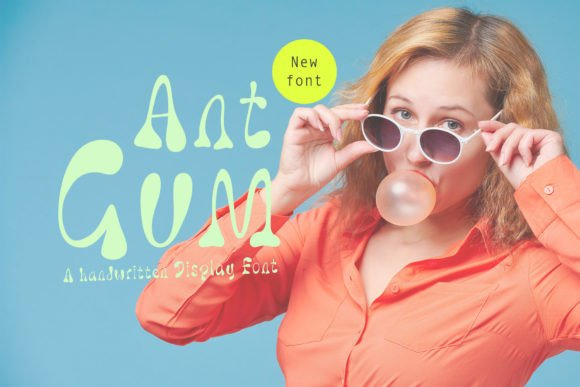
The Charm of Ant Gum Font: A Retro-Inspired Design Delight
As designers, we’ve all been there – stuck on a project, searching for the perfect font that captures the essence of our vision. I recall working on a client’s branding project, wanting to evoke a sense of nostalgia and warmth, but struggling to find a font that fit the bill. That’s when I discovered Ant Gum, a delightful font that instantly transported me to a bygone era. In this article, we’ll dive into the world of Ant Gum, exploring its unique features, and how to make the most of this beautiful font.
A Personal Design Moment: Falling in Love with Ant Gum
It was a typical Wednesday afternoon when I stumbled upon Ant Gum while browsing through a font repository. I was immediately drawn to its adorable handwriting characters and retro theme. The soft curves and sweet, charming impression it conveyed were exactly what I needed for my project. I knew right then and there that Ant Gum was going to be a game-changer.
So, what makes Ant Gum so special? Here are a few things I love about this font:
• ✨ Adorable handwriting characters that exude warmth and nostalgia
• ✅ Retro theme that adds a touch of vintage charm to any design
• 💕 Soft curves and sweet, charming impression that evoke feelings of innocence and playfulness
Of course, no font is perfect, and Ant Gum has a few quirks to be aware of:
• 🤔 Limited character set, which may require some creative workaround for certain design projects
• ⚠️ Not ideal for body text, as it’s best suited for headlines and titles
The creator of Ant Gum was inspired by the warmth and nostalgia of retro handwriting styles. They wanted to create a font that would evoke memories of the past, while still feeling modern and fresh. With Ant Gum, they aimed to bring a sense of joy and nostalgic feelings to designers and crafters alike.
Font Name Ant Gum Font
Author Tera Asset Garage
What is Ant Gum font best used for? Ant Gum is ideal for designs that require a touch of nostalgia and whimsy, such as branding, packaging, and titles.
In conclusion, Ant Gum is a delightful font that brings a touch of nostalgia and whimsy to any design project. With its adorable handwriting characters, retro theme, and soft curves, it’s perfect for designers, crafters, and creative hobbyists looking to add a unique touch to their work.